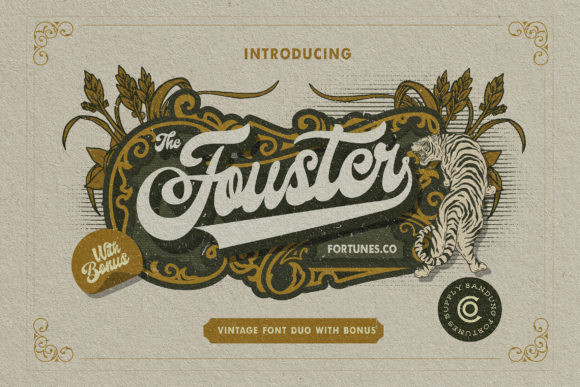
Fouster Font
Fouster is a bold and vintage styled display font. This font reads as strong, confident, and dynamic and can add tons of nostalgic character to your designs.